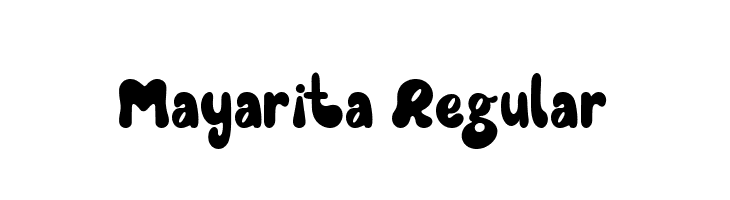
( Fonts by Masa Aska Sanurumi )
A bold, playful handwritten font with thick strokes and rounded edges.
( Fonts by Lettersweet Studio )
A bold, playful font with rounded, bubbly characters ideal for fun and creative projects.
A bold, dynamic script font with interconnected, rounded characters.
A bold, dynamic script font with interconnected characters and high contrast.
A playful, bubble-like font with rounded, enclosed characters.
A playful, bold font with rounded, bubble-like characters and unique cutouts.
A bold, playful font with rounded, bubble-like characters and circular cutouts.
A playful, hollow, and bubbly font with rounded characters.
A playful, hollow bubble-like font with a whimsical inverse design.
A playful, bubble-like font with rounded characters and whimsical cutouts.